I'm learning English cursive font recently. And I'm confused about how I can link the "o" and "s" together in words such as "those", "goes", and so on. Because the end of "o" is much higher than that of "s". By the way, I use the attachment as the model.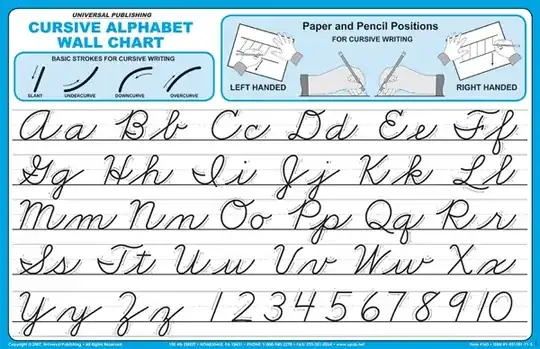
4Capital O wouldn't link to the next letter. The loop would just hang. – LawrenceC Aug 24 '16 at 17:03
2The OP's chart is only one version of "cursive writing." Many of the letter forms are different form the ones I learned in school in the UK - and in the version I learned, upper case letters were never linked to the following lower case letters. – alephzero Aug 24 '16 at 21:45